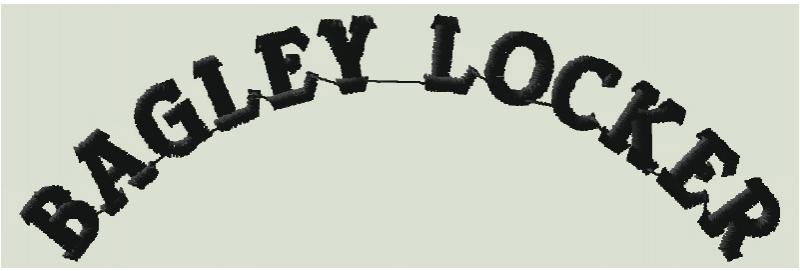
Matching an Embroidery Font, Help!
I have run through Find My Font, What Font is, and WTF, but no matches. i'm trying to get as close as I can for some screen printed T-shirts to what they have embroidered.
It looks familiar, but I wonder if embroiderers have some proprietary fonts that they use.
I think that is the case, but I would think someone would have come up with something similar. The real differences are the angled serifs.
Yep, we do, but that's not in my collection, at least not a quick glance though. It could be one that is no longer in circulation though.
Easy enough to trace.
Those are pretty big thread jumps. What size was this originally?
I don't know original size, but I'm guessing it was caps or left chest logo.
Embrodery itself destroys the font with the sewing.
Sportage Tall - site 4
It depends. It depends on how it was digitized and at what size it was digitized for. Not all fonts can be used at the same size. When you have professionally digitized fonts (not all are TTF fonts at that), they have min and max stitching values. You go above or below that, that's when it looks like embroidery itself destroyed the font.
This is one of the reasons why designs so often have to be recreated in embroidery. You might see the one letter of text as just one object, but depending on size and fabric, it might translate to 6 objects in embroidery.
What bothers me the most are those thread jump connectors, especially between the "Y" and the "L". I can understand it from a production standpoint, but I would have tried to use closest join to hide those and would have used a trim between the words. They were just too concerned with production and not enough on final product. Unless they are going to manual cut between all of those letters, some of which I doubt that they could.